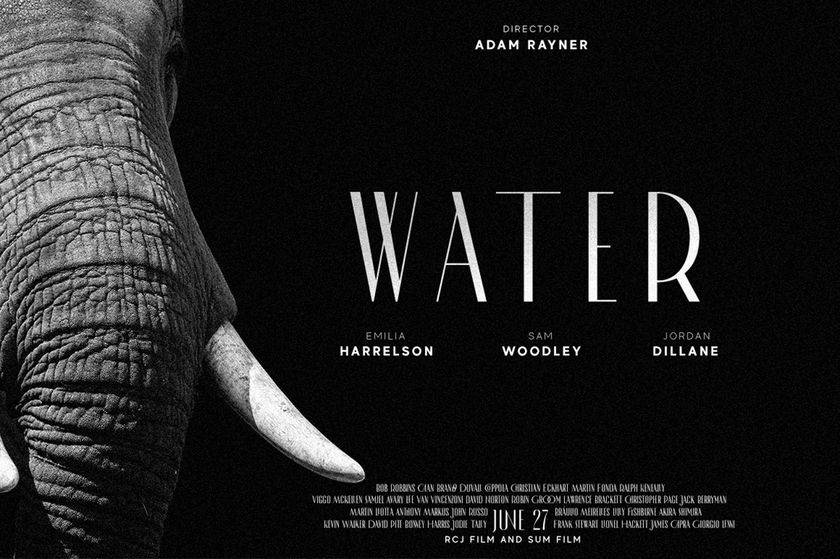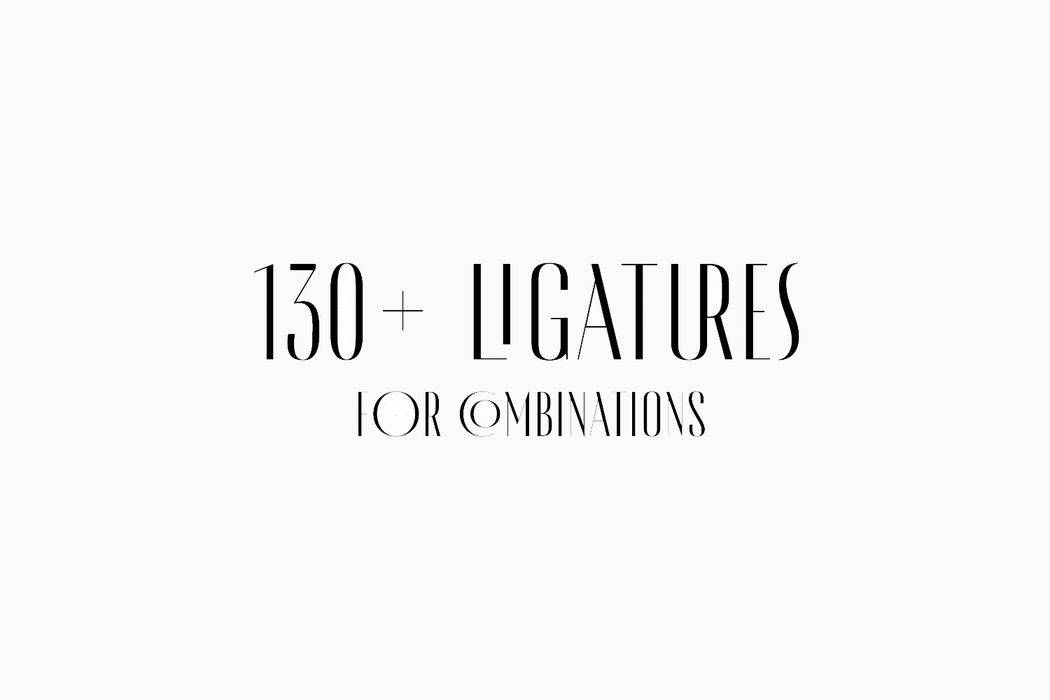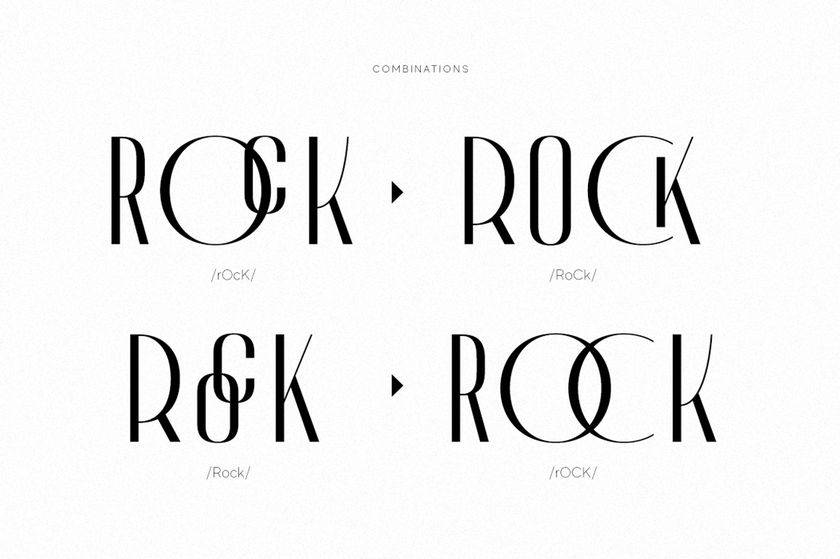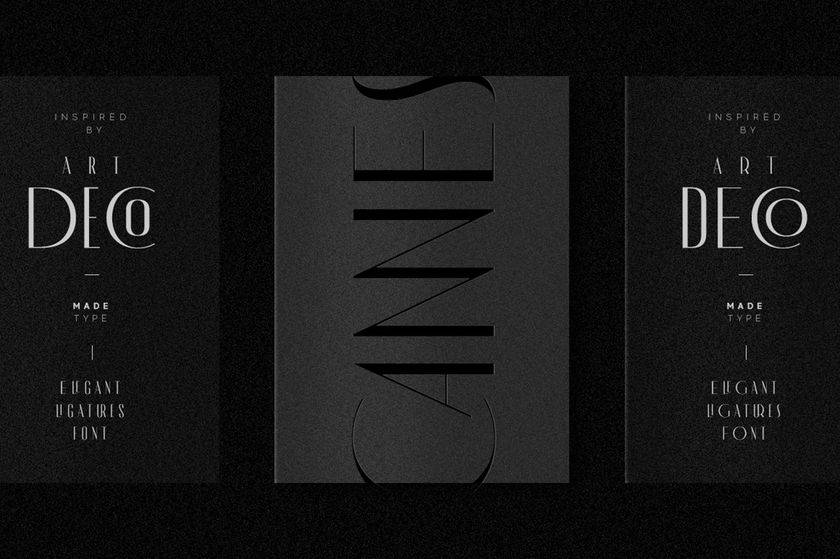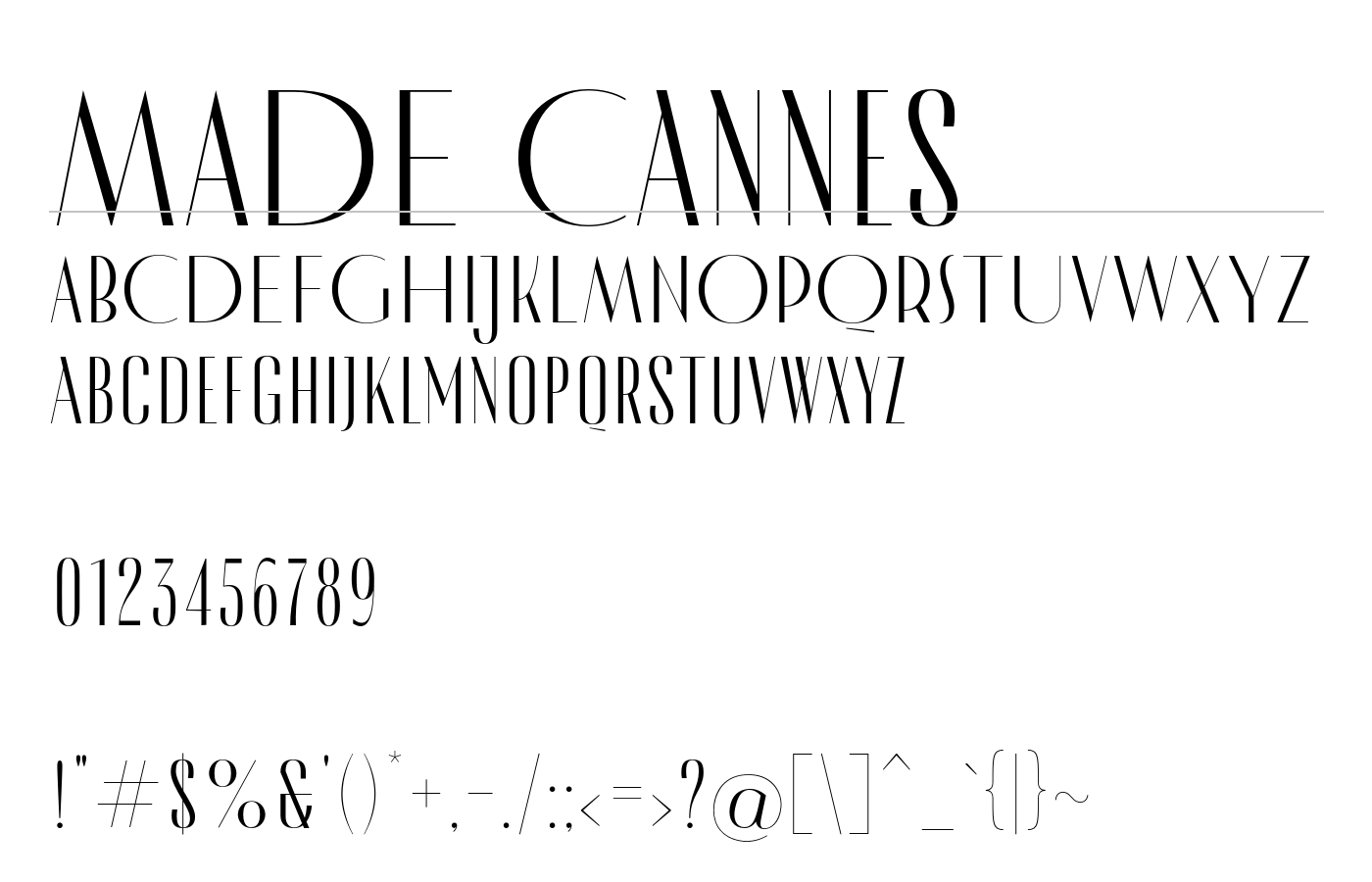
Cannes is a slender, elegant serif font with a high contrast between thick and thin strokes, featuring tall, narrow letterforms that convey a refined and sophisticated Art Deco-inspired style. Its delicate details and graceful proportions make it ideal for luxury branding, fashion headlines, and upscale editorial design, adding a touch of glamour and exclusivity where used.
Cannes Font
About Cannes Font